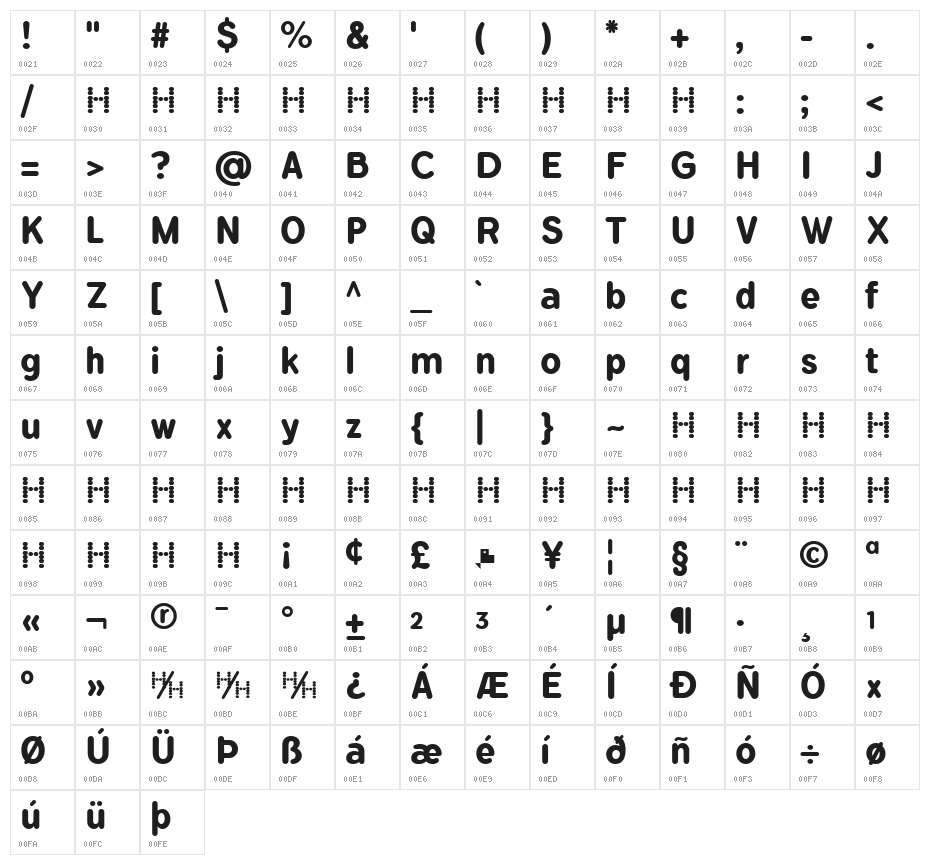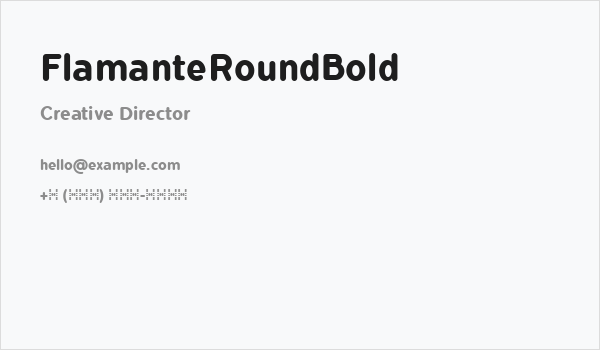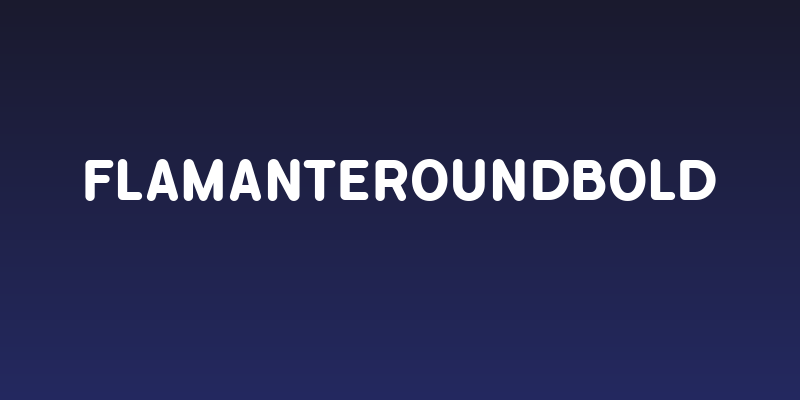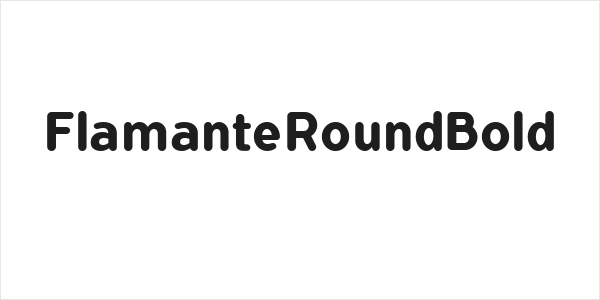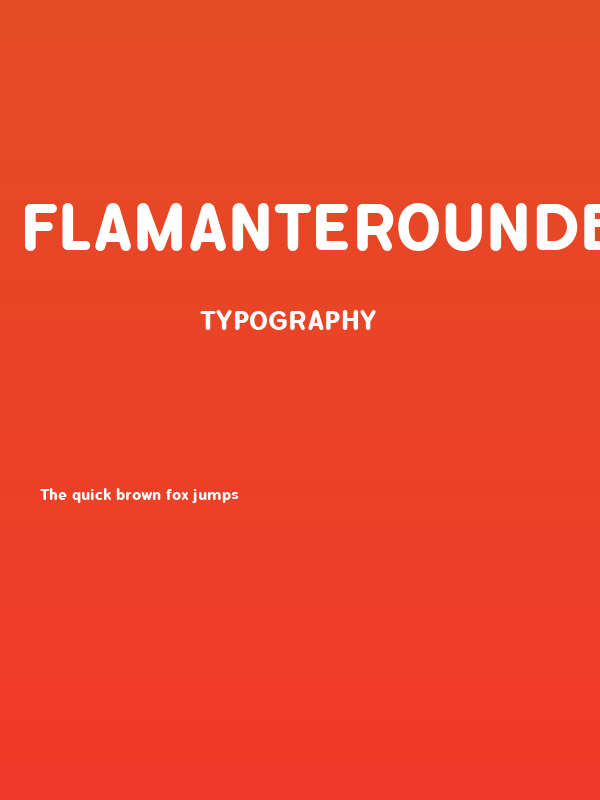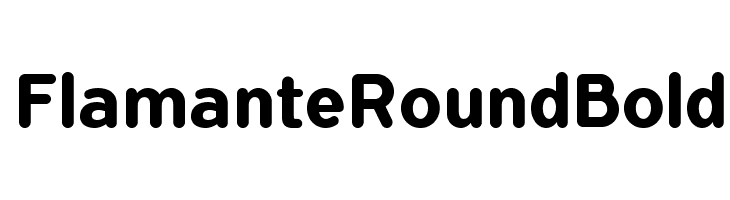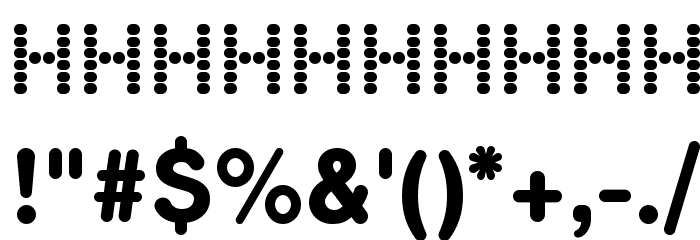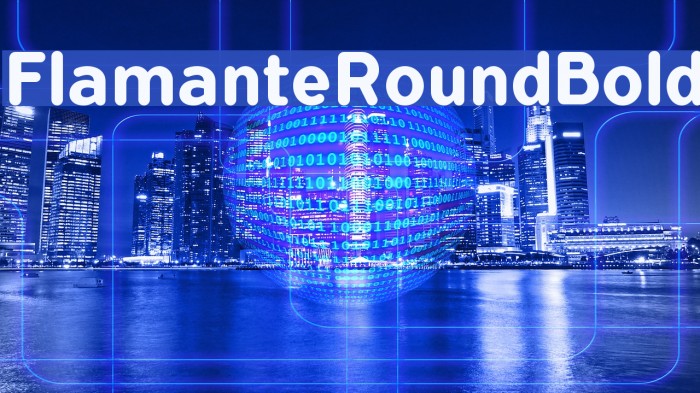
FlamanteRoundBold Font
| Область применения | Headlines, Logos, Branding |
| Рекомендуемые проекты | Ideal for branding, advertising, packaging, and digital media projects that require a friendly and professional touch. |